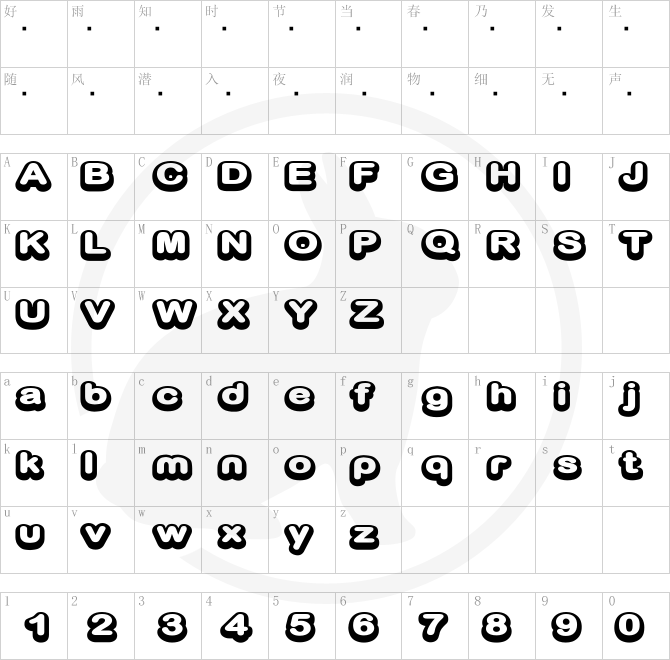
- Font Name:D3 Biscuitism Bold
D3-Biscuitism-Bold.ttf is a very beautiful artistic font, D3-Biscuitism-Bold.ttf is widely used in the design and printing of various books and pictures,D3-Biscuitism-Bold.ttf has a strong visual impact,D3-Biscuitism-Bold.ttf is a commonly used font in newspapers, magazines and books, and is used in posters, e-commerce Poster design, store design, logo design, font design and other fields.D3-Biscuitism-Bold.